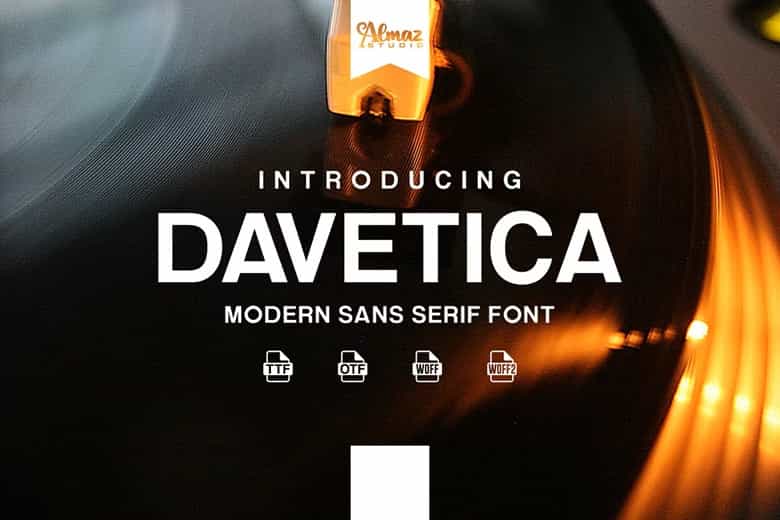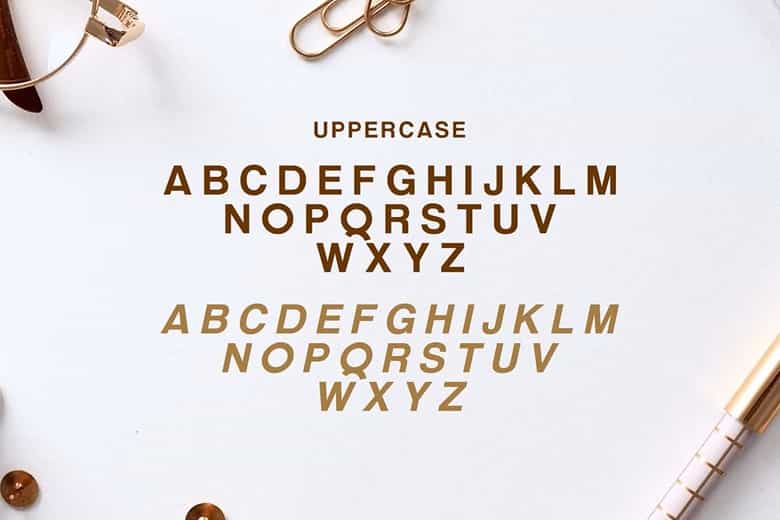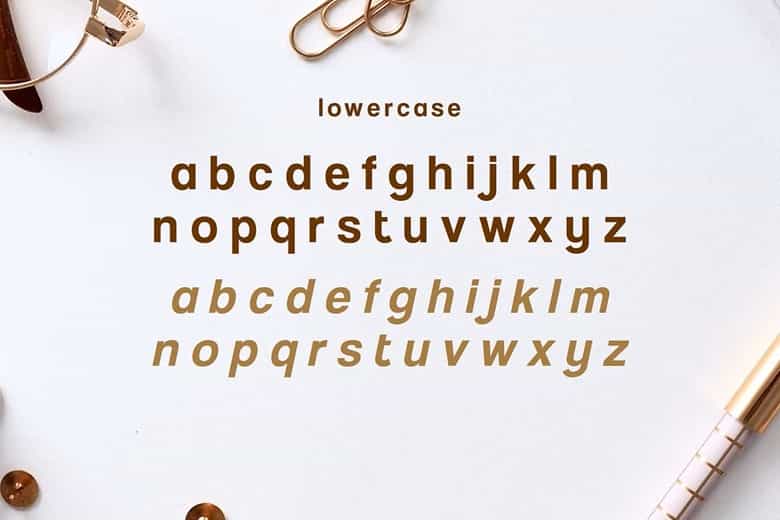
Discover Davetica Font, part of the Sans Serif collection—a versatile and unique font perfect for adding a personal touch to your projects. Download it for free and enjoy crafting designs with style, from invitations to social media posts. This font is available exclusively for personal use, giving you the freedom to create without limits. Unlock your creativity with Davetica Font today!
This new sans serif typeface called Davetica was developed by Almaz Studio™. Most existing Latin-based languages are able to use this dictionary. You can easily use Davetica to put the fonts onto your computer and create things like posters, web graphics, game graphics, t-shirts, videos, signs, eBooks and logos. Using bold, strong fonts can make your graphic stand out and look attractive.